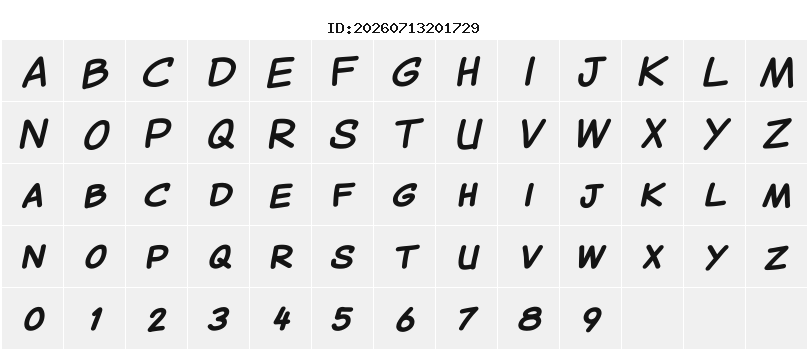
• Font Name: Canted Comic
• Designer: Nils Cordes
Canted Comic.ttf is a modern, elegant sans-serif font designed for ultimate readability and visual harmony. Perfect for branding, headlines, web design, and print materials.